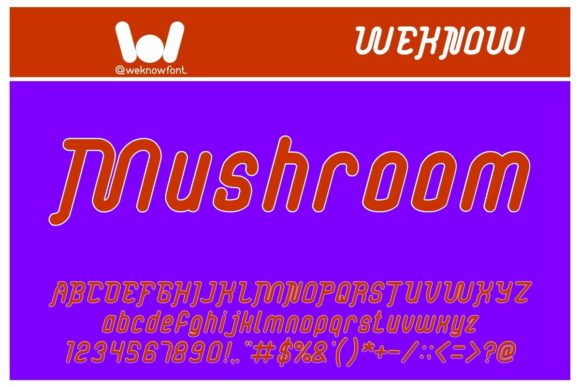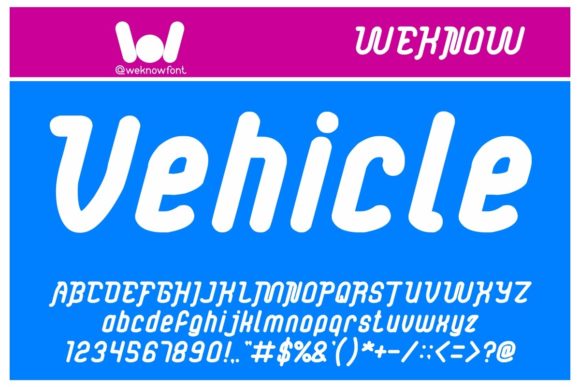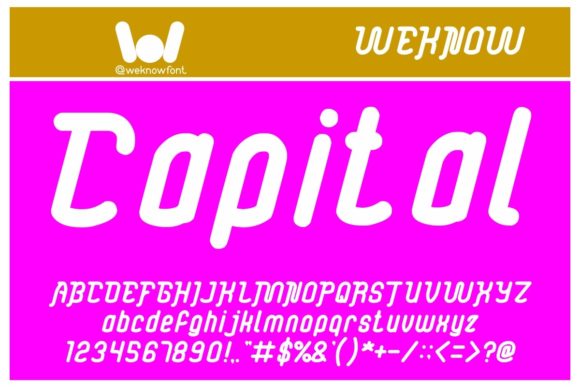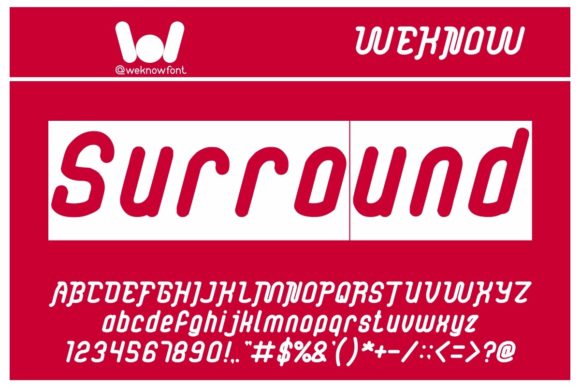
Introducing Electronic: The Cool and Fun Display Font for Crafters and Designers
Are you looking for a font that can add a touch of excitement and playfulness to your crafting projects? Look no further than Electronic, a cool and fun looking display font that’s perfect for elevating a wide range of creative ideas. From cards and branding to labels and more, Electronic is the perfect choice for crafters and designers who want to make a statement.
What is Electronic Font?
Electronic is a display font that’s designed to make a bold impact. With its sleek and modern design, this font is perfect for anyone who wants to add a touch of edginess to their projects. Whether you’re creating handmade cards, crafting custom labels, or designing a brand identity, Electronic is the perfect choice.
Key Features of Electronic Font
- Cool and Fun Design: Electronic has a unique and playful design that’s sure to grab attention.
- Versatile: This font can be used for a wide range of crafting ideas, from cards and invitations to branding and labels.
- Easily Readable: Despite its bold and edgy design, Electronic is still easy to read, making it perfect for use in a variety of contexts.
- Imagination is the Only Limit: With Electronic, the possibilities are endless. Use it to create unique and eye-catching projects that showcase your creativity.
Uses for Electronic Font
So, what can you do with Electronic font? The possibilities are endless, but here are a few ideas to get you started:
- Handmade Cards: Add a touch of excitement to your handmade cards with Electronic font. Use it to create bold and eye-catching titles, or as a decorative element to add visual interest.
- Branding and Labels: Use Electronic font to create custom labels and branding elements that showcase your unique style.
- Crafting Projects: From scrapbooking to DIY home decor, Electronic font is perfect for adding a touch of personality to your crafting projects.
- Digital Design: Electronic font is also perfect for digital design projects, such as social media graphics, blog posts, and more.
Tips for Using Electronic Font
Here are a few tips for getting the most out of Electronic font:
- Experiment with Different Sizes: Electronic font looks great in a variety of sizes, from small and subtle to large and bold.
- Pair it with Other Fonts: Try pairing Electronic font with other fonts to create a unique and eye-catching look.
- Use it to Add Visual Interest: Use Electronic font to add visual interest to your projects, such as by creating a bold title or highlighting important information.
If you’re looking for a font that can add a touch of excitement and playfulness to your crafting projects, look no further than Electronic. With its cool and fun design, versatility, and ease of use, Electronic is the perfect choice for crafters and designers who want to make a statement. So why wait? Download Electronic font today and start creating unique and eye-catching projects that showcase your creativity.
Whether you’re a seasoned crafter or just starting out, Electronic font is sure to become a favorite in your collection. So go ahead, let your imagination run wild, and see what amazing projects you can create with Electronic font.